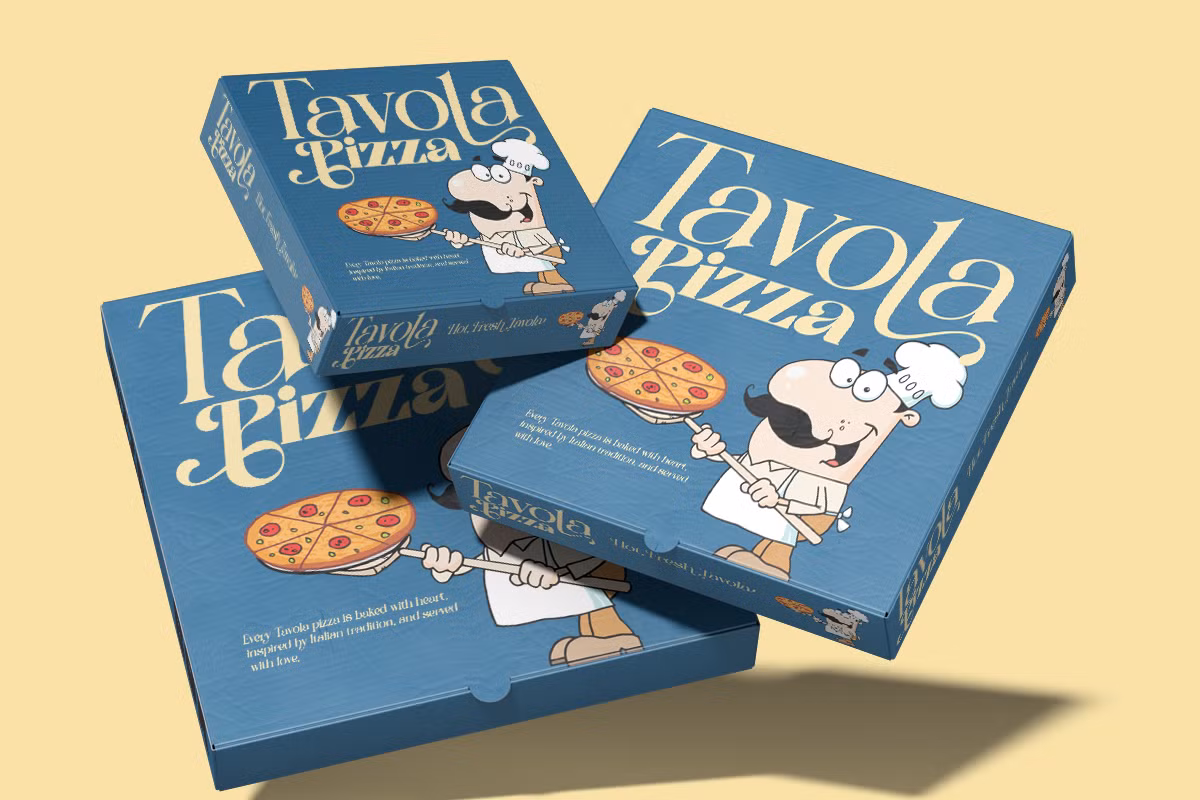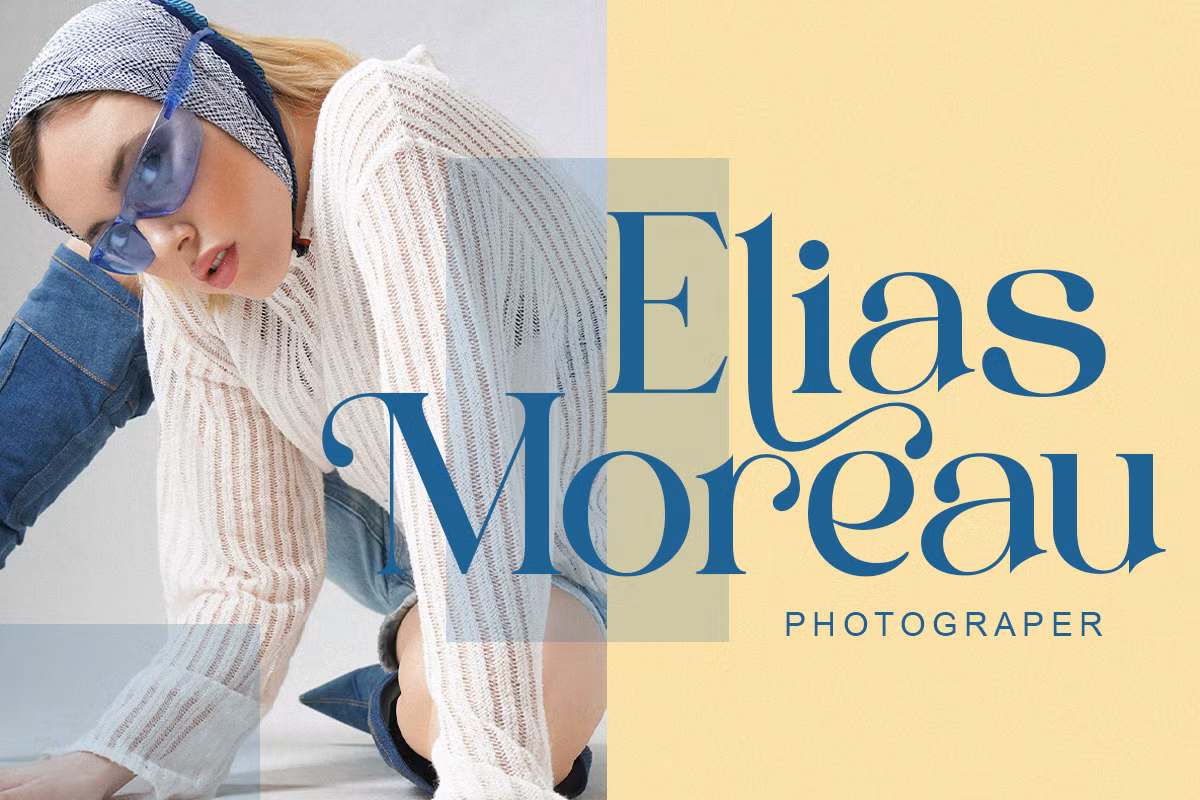
Saltive: Elegant Modern Serif Font for Stylish Branding and Design
Saltive - Elegant Modern Serif
Saltive: Elegant Modern Serif Font for Stylish Branding and Design
Introducing Saltive
Meet Saltive, a serif display font that helps tell stories. I have tried Saltive. I like the way Saltive reads. Saltive mixes curves with structure. Saltive works for design projects. If you are making the branding material the fashion graphics or the editorial layouts Saltive gives a feel. Saltive looks good on the print page and, on the screen.
Example of Saltive font in use
Saltive font showcased in design projects.
Design Style of Saltive
Saltive has a design style that blends looks with the classic feel of serif fonts. The flowing curves and distinct character shapes add to the appearance. They make Saltive good, for branding and design projects. Saltive uses proportions that keep the text clear and easy to read which helps get the message across. I have used Saltive. I like Saltive’s look.
• Elegant Display Serif: I think the serif style of Saltive gives a look. The serif style of Saltive works, for branding and editorial layouts.
• Smooth Curves: Smooth Curves are clear. The flow of the curves, in Saltive gives the design a look. Smooth Curves make the text pop in headlines and, in body copy. I notice that Smooth Curves help the design feel fresh.
• Modern Proportions: Saltive’s balanced proportions help the text be easy to read. Saltive’s balanced proportions keep a feel while being clear. Saltive’s balanced proportions make the design work, in places. Adapt to different uses.
Visual representation of Saltive's character set
Character set of Saltive font for design applications.
Character Sets and Multilingual Support
I like that Saltive has a set of characters. Saltive includes both the upper case letters and the lower case letters. Saltive lets designers make type designs. Saltive also supports languages. Saltive makes adding Saltive to the projects that need languages easy. Saltive helps global brands keep the look across all their work.
I like that the PUA encoding of Saltive makes all glyphs easy to get. The PUA encoding of Saltive helps the design work, for the user. I can design for a market or an international audience. The Saltive character set and the encoding help me with all my typography needs.
Use Cases for Saltive
Saltive works well for design applications. I have found ways to use Saltive that show the range of Saltive:
• Branding: I create logos and brand identities that connect with your target audience. The serif style of Saltive adds a bit of class to any brand.
• Fashion Projects: Use Saltive in fashion lookbooks, advertisements, or social media campaigns to convey a sense of style and elegance.
• Layouts: Saltive works well for magazines and publications. Saltive makes the look of articles and headlines better. Keeps the text easy to read. I have used Saltive and Saltive always looks clean.
• Packaging: I think putting Saltive into the product packaging helps. The product packaging then has a feel. Draws the consumer’s eye on the shelf.
• Social Media Visuals: Use Saltive in your media graphics. Saltive helps you make posts that catch the eye and stand out in the space.
Showcase of Saltive font in social media graphics
Saltive font in social media graphics to attract attention.
Pairing Suggestions for Saltive
I find pairing fonts with Saltive helps me build hierarchies. Pairing suggestions can improve the design projects you are working on:
• Saltive, with Sans-Serif Fonts: Saltive works well with sans‑serif fonts. When you pair Saltive with a sans‑serif font such as Montserrat or Lato, Saltive and the sans‑serif font make a strong contrast and keep the text easy to read.
• Saltive and Handwritten Fonts: I use Saltive with a font, like Dancing Script, for a touch. Saltive and the handwritten font add warmth and character to the designs.
• Saltive, with Minimalist Fonts: I use fonts such as Helvetica Neue. Minimalist fonts make the project look better and keep it clear.
In short Saltive is more than a font. Saltive works as a tool for designers who want to improve their projects. Saltive has a design and a large set of characters. Saltive works across applications. Saltive fits branding, fashion, editorial layouts and more. When you are creating a headline or a logo Saltive can lift the look. Saltive makes the visual story of your design clearer. Adds a touch that catches the audience. I use Saltive in the design project I start. Saltive changes the work I create into a piece of typography.